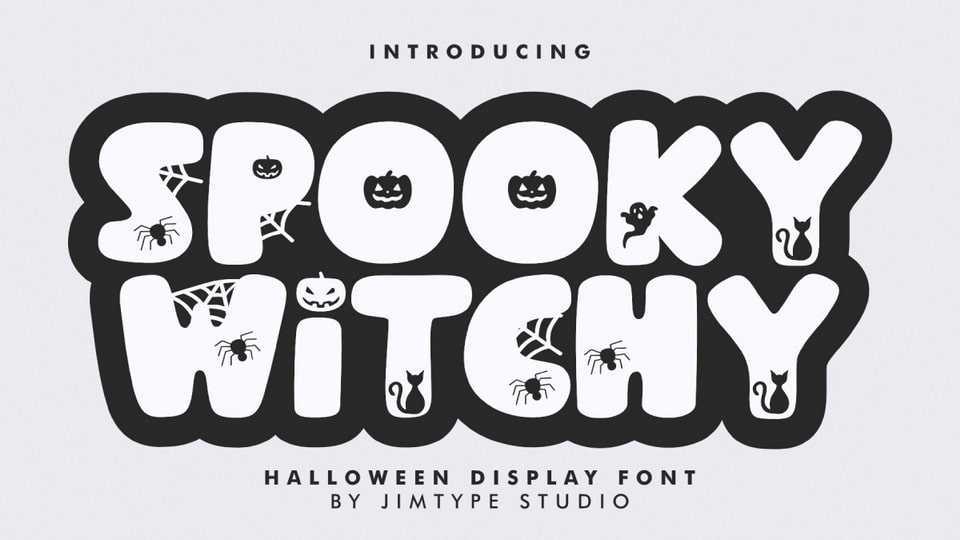
Download Spooky Witchy font, a captivating display typeface designed to add a touch of magic to your creative projects. Whether you’re conjuring Halloween designs or brewing up something extraordinary, Spooky Witchy font is your spellbinding companion